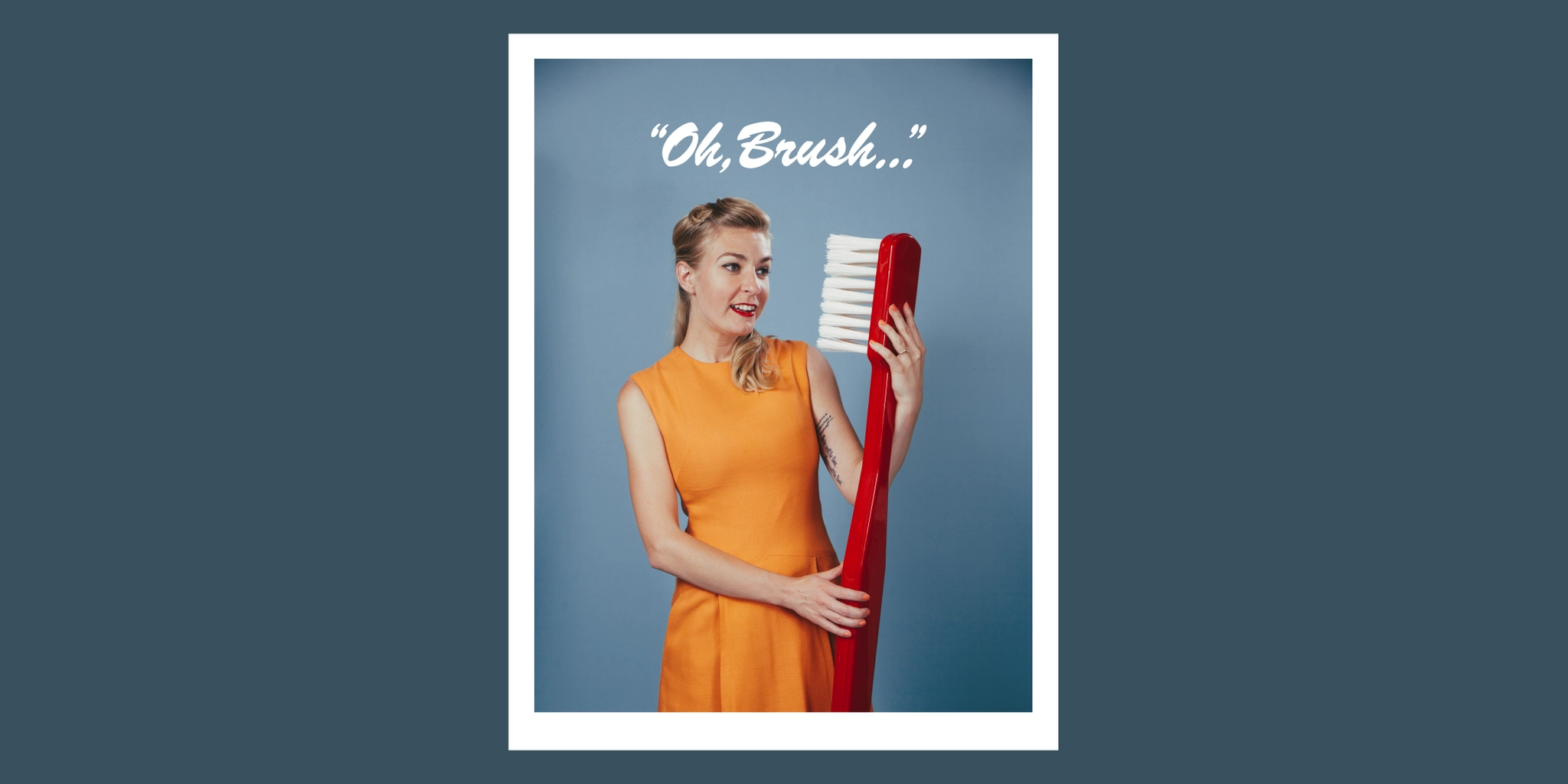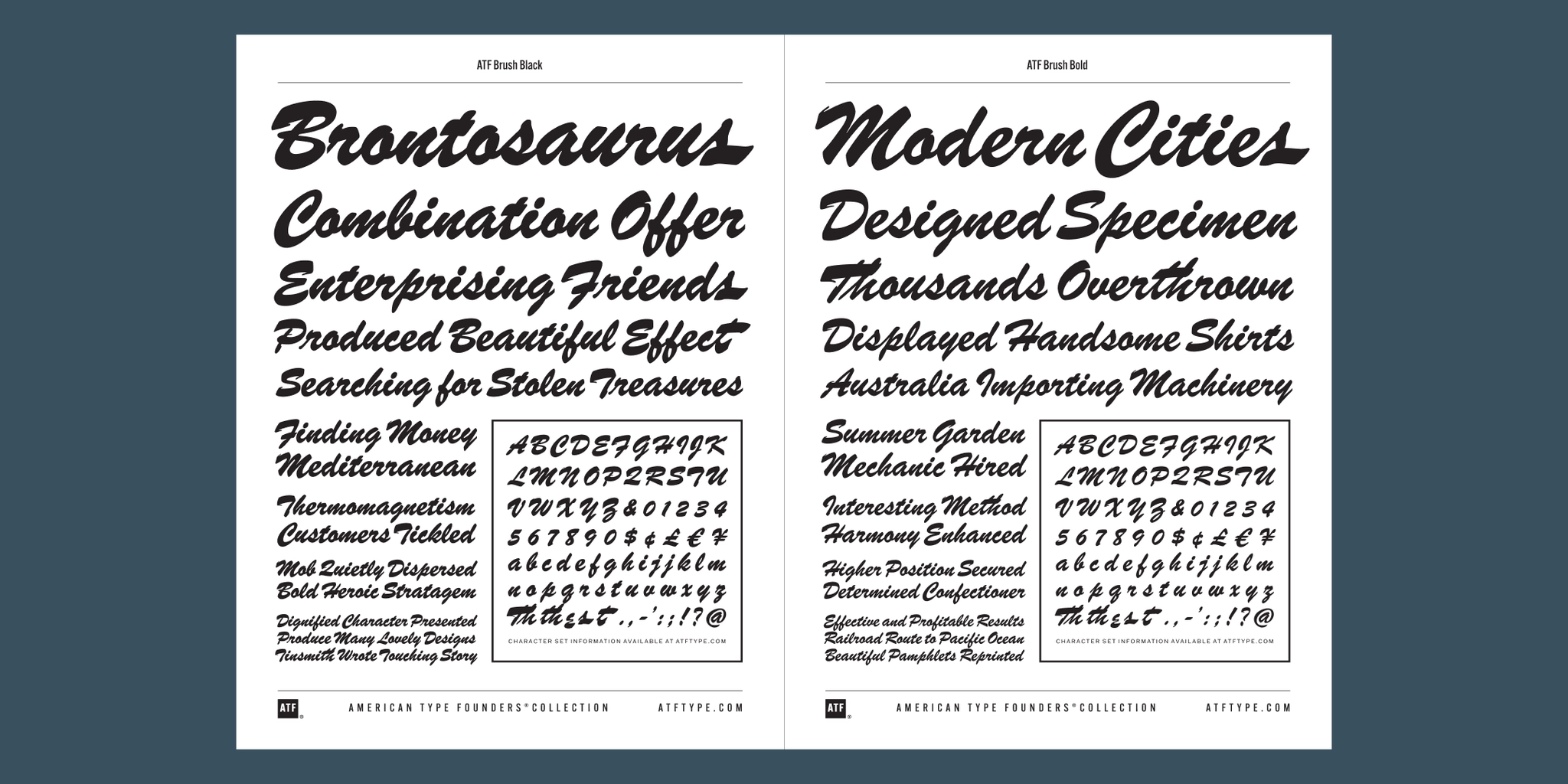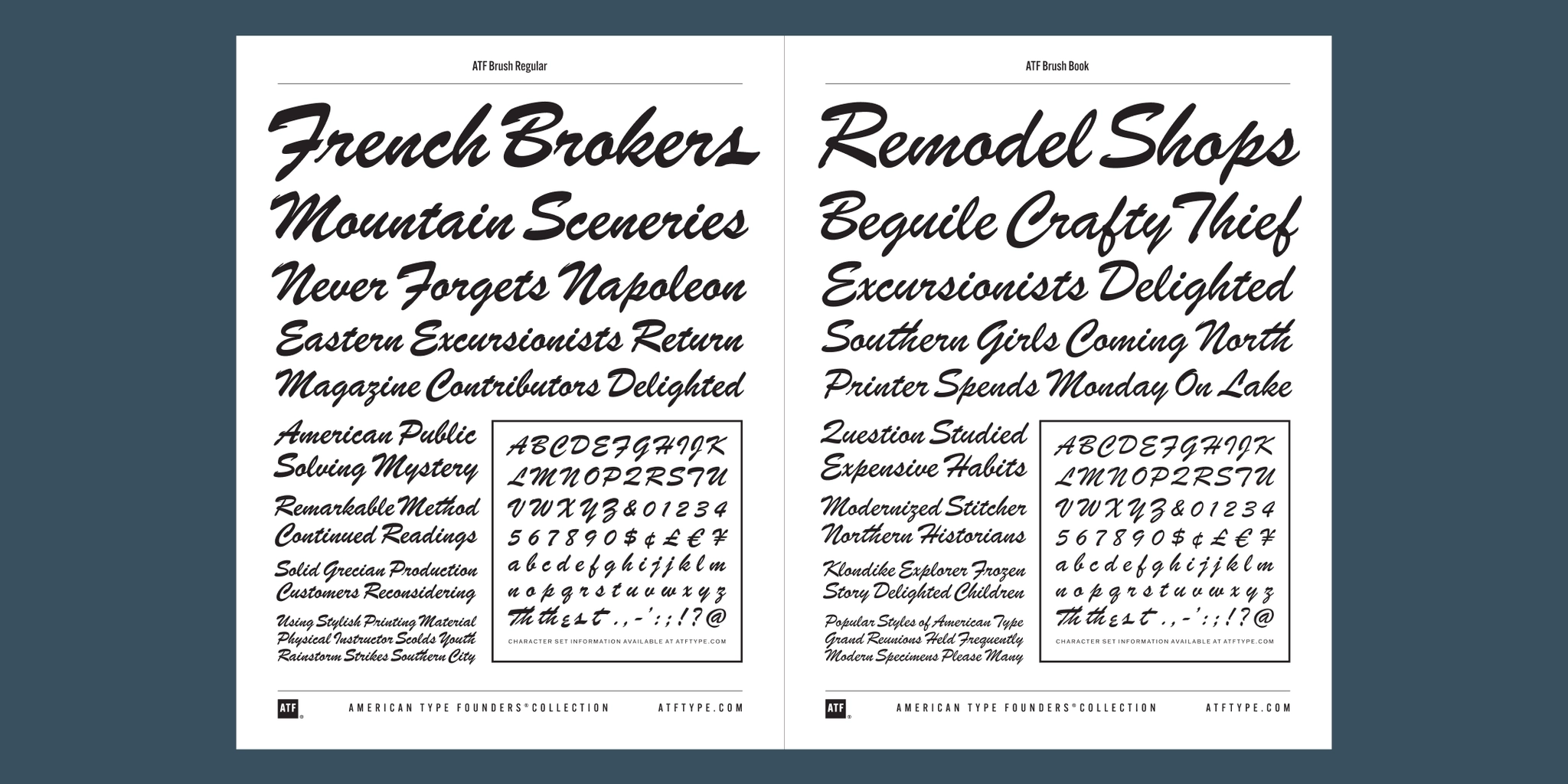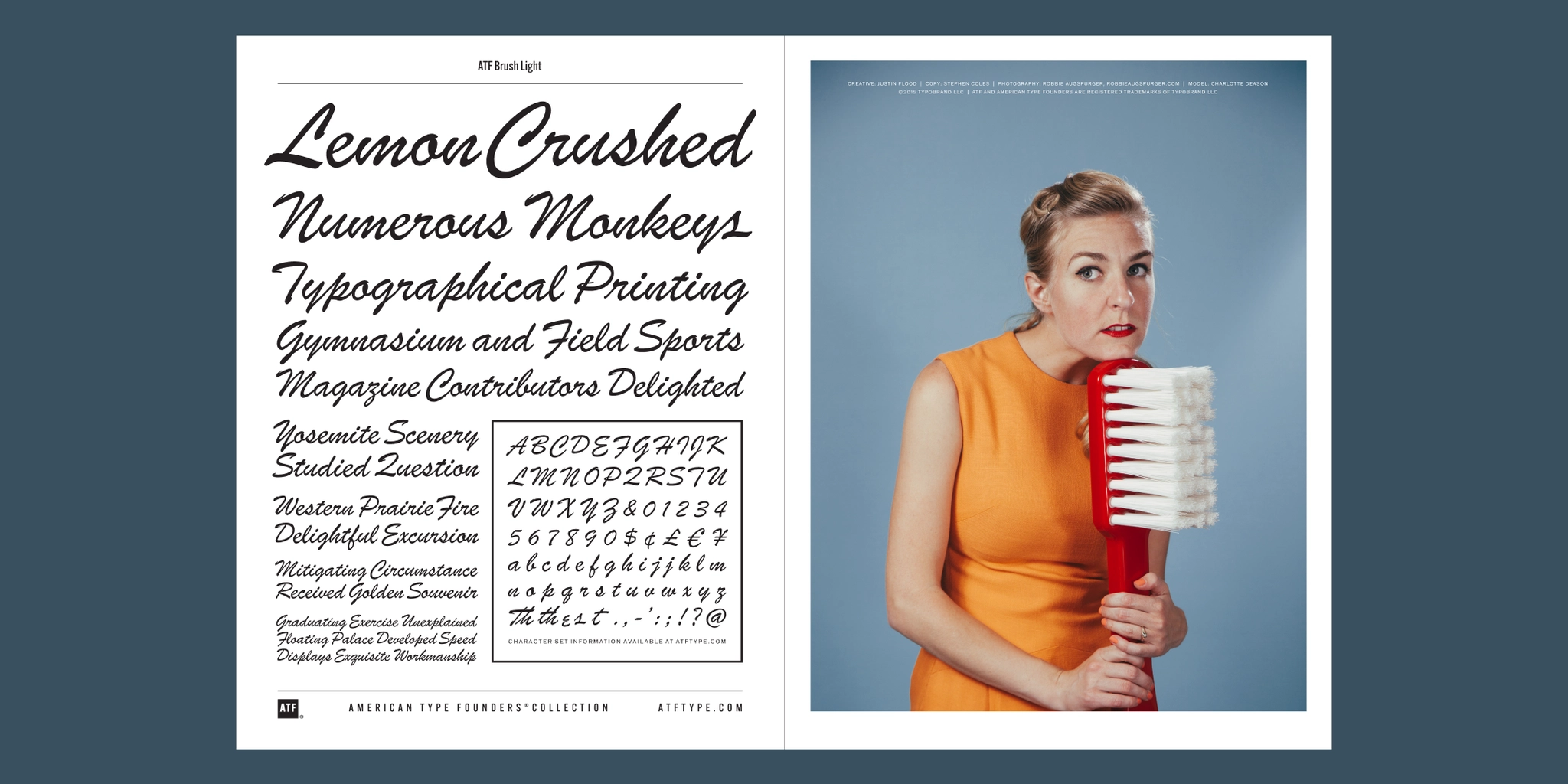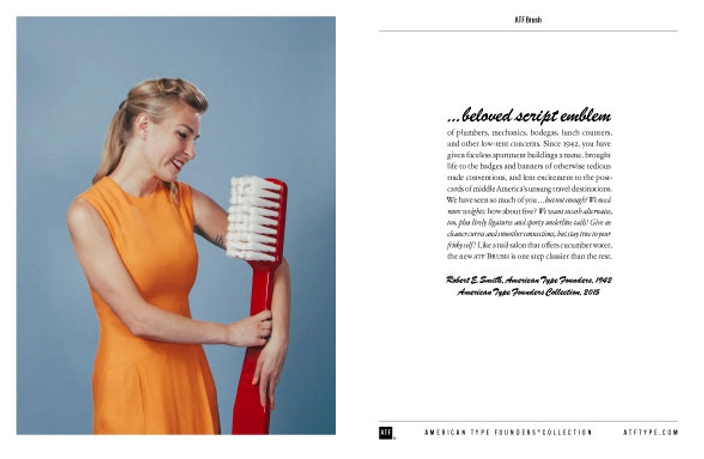
Brush Font Family
Designed by Robert E. Smith.
1942 and 2015.
The American Type Founders collection was developed by Mark van Bronkhorst.
Brush Script is the original beloved script by all trades. With swashes, ligatures, and sporty underline tails it’s ideal for branding, posters, and advertisements.
… beloved script emblem of plumbers, mechanics, bodegas, lunch counters, and other low-rent concerns. Since 1942, you have given faceless apartment buildings a name, brought life to the badges and banners of otherwise tedious trade conventions, and lent excitement to the postcards of middle America’s unsung travel destinations. We have seen so much of you … but not enough! We need more weights: how about five? We want swash alternates, too, plus lively ligatures, and sporty underline tails! Give us cleaner curves and smoother connections, but stay true to your frisky self! Like a nail salon that offers cucumber water, the new ATF Brush is one step classier than the rest.